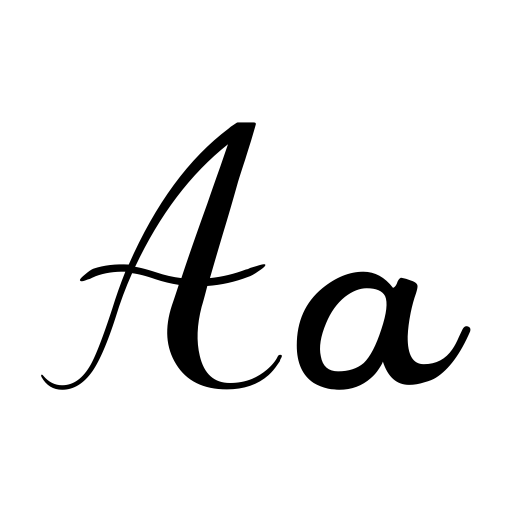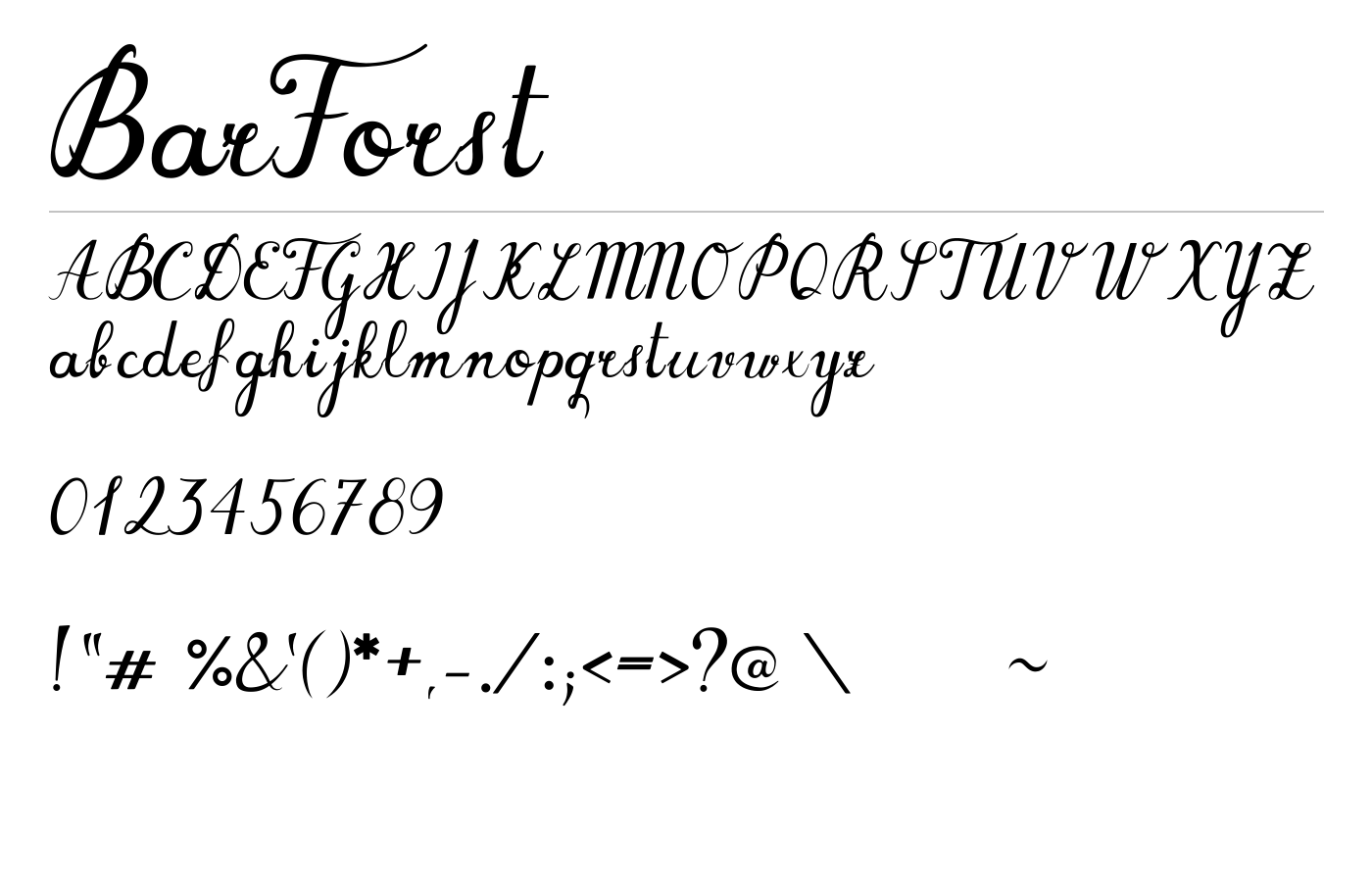
BarForst is an elegant script font with a refined, calligraphic style that combines flowing, graceful curves with moderate stroke contrast. Its slender, upright letterforms feature distinctive flourishes and a sophisticated, vintage feel, making it ideal for luxury branding, invitations, or editorial headlines where a touch of classic beauty is desired. This font works best in contexts that need a stylish, personal touch while maintaining clear readability.
BarForst Font